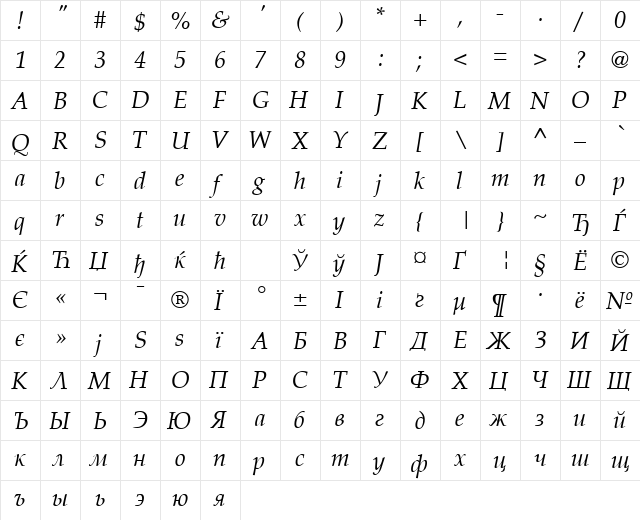
AGPalatial Italic
Design Context for AGPalatial Typeface
AGPalatial takes a measured approach to typography — its balanced proportions and neutral character make it a reliable workhorse for both digital and print work. The slanted form adds forward momentum and visual energy.